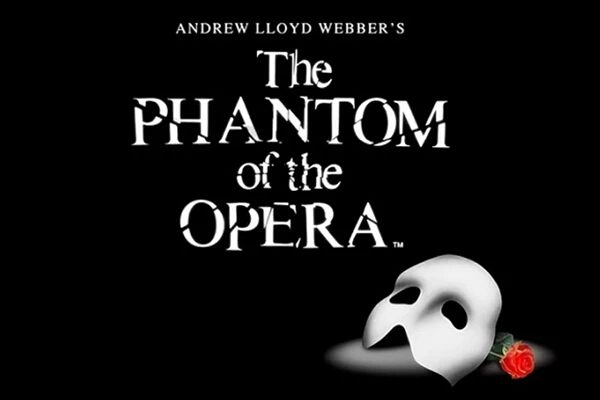
The name of the Phantom Of The Opera font that is used in the logo lettering for this famous musical is a typeface called Phantom CO. It was created by Cassiel Oliviari who is a font designer from Canada. An interesting point is that it was created using the Font Creator 5.0 software tool, using Times New Roman as the base. This font was first published by Cassiel over on the Deviant Art website back on 18 July in 2005. Since then, the font has been more than 70,000 times and downloaded more than 17,000 times. This is surely testament to quality of the font and how closely it aligns to the original design.
This font is a near exact replica of the one used in the original Phantom Of The Opera musical. It fact, the author of this font noted that he had seen it being used in an actual Phantom stage performance. There is a jaggered and cracked appearance in this font just like the original version. You can use this typeface to create a Phantom Of The Opera logo of your own design.